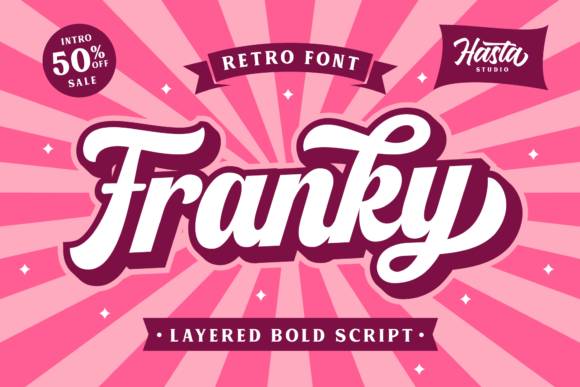
Looking for the perfect font for your CD packaging? Look no further than Franky Font, created by IklazStudio. This retro, bold handwritten font features an 80s style that is sure to catch the eye of any potential customer.
What sets Franky Font apart is its PUA encoding, which allows for easy access to all glyphs and swashes. This means that you can create stunning designs with ease, using the varying baseline, smooth lines, gorgeous glyphs, and stunning alternates that this font offers.
But Franky Font is more than just a pretty face. It is also incredibly versatile, making it the perfect choice for any number of design projects. From posters to logos to packaging, this font will help your designs stand out from the crowd and capture the attention of your target audience.